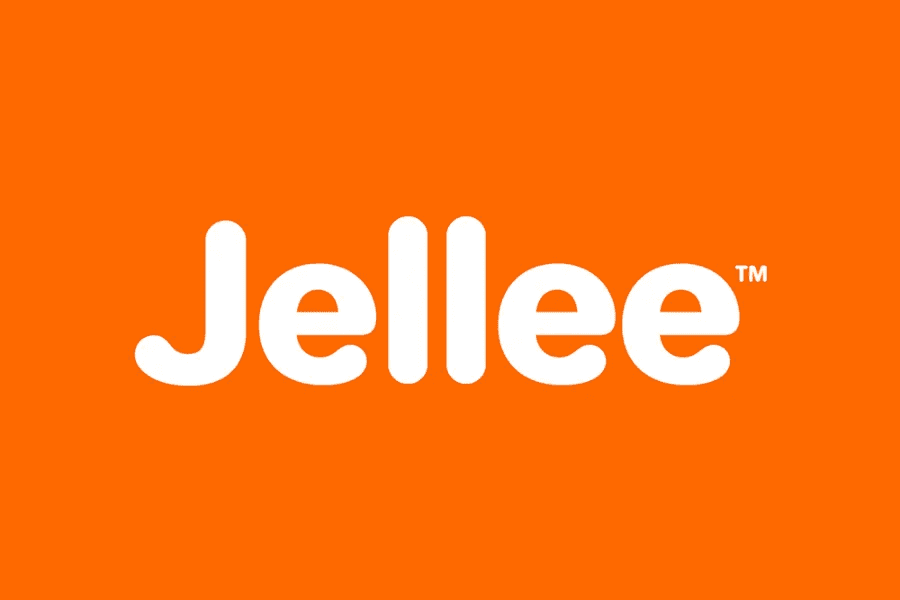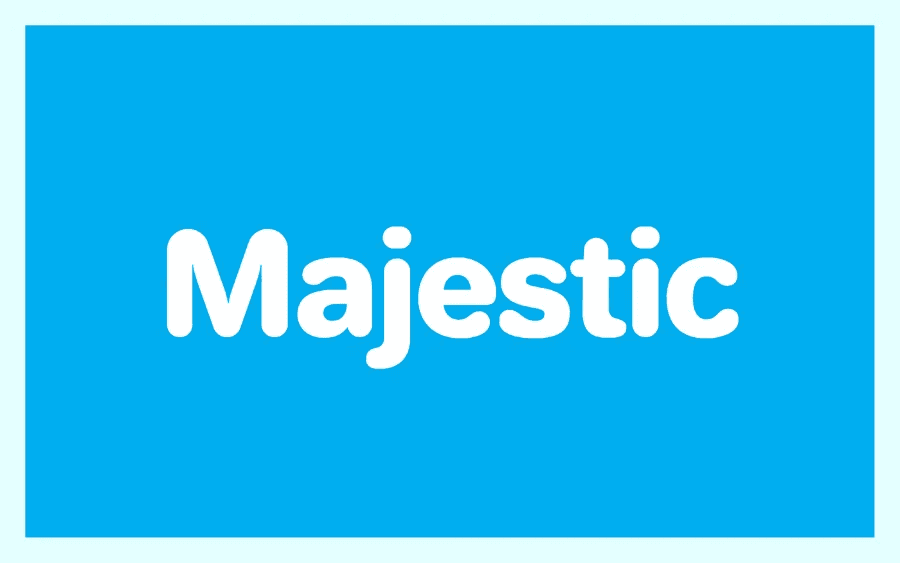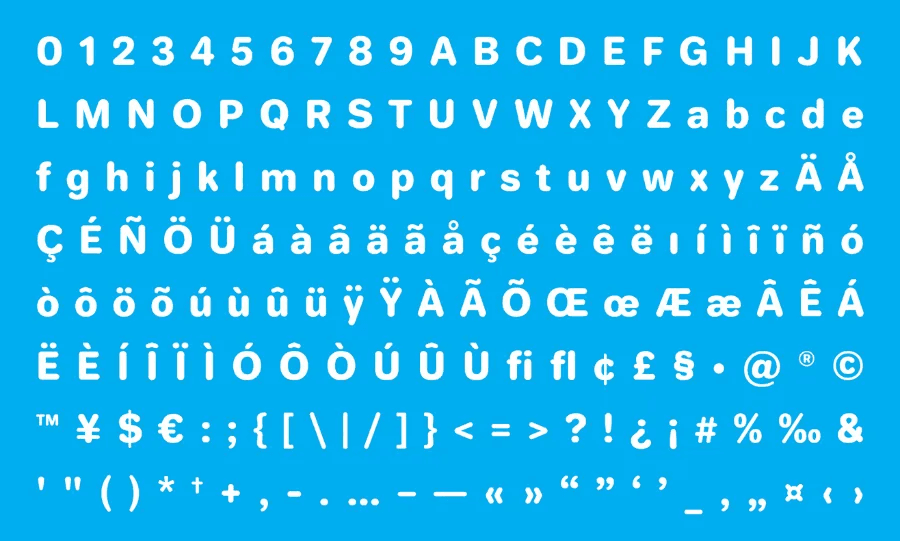
Jellee Typeface
Jellee is a typeface created to look fine and friendly. This sans serif font can be very useful for you next creative project. It looks very good on logo and branding design, readable in both big and small size. Add Jellee on your design and you will have more pleasant touch on it!Thanks to Alfredo Marco Pradil for sharing this very cool typeface for free! make sure to check out on his portfolio for his latest creative project! you can always hit the appreciate button if you like his works.Download (26,397)Check out more